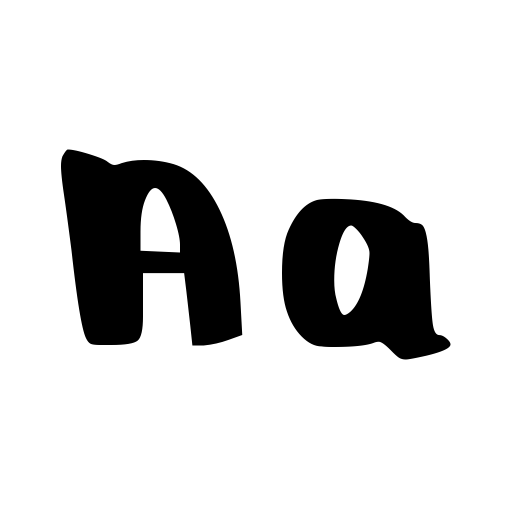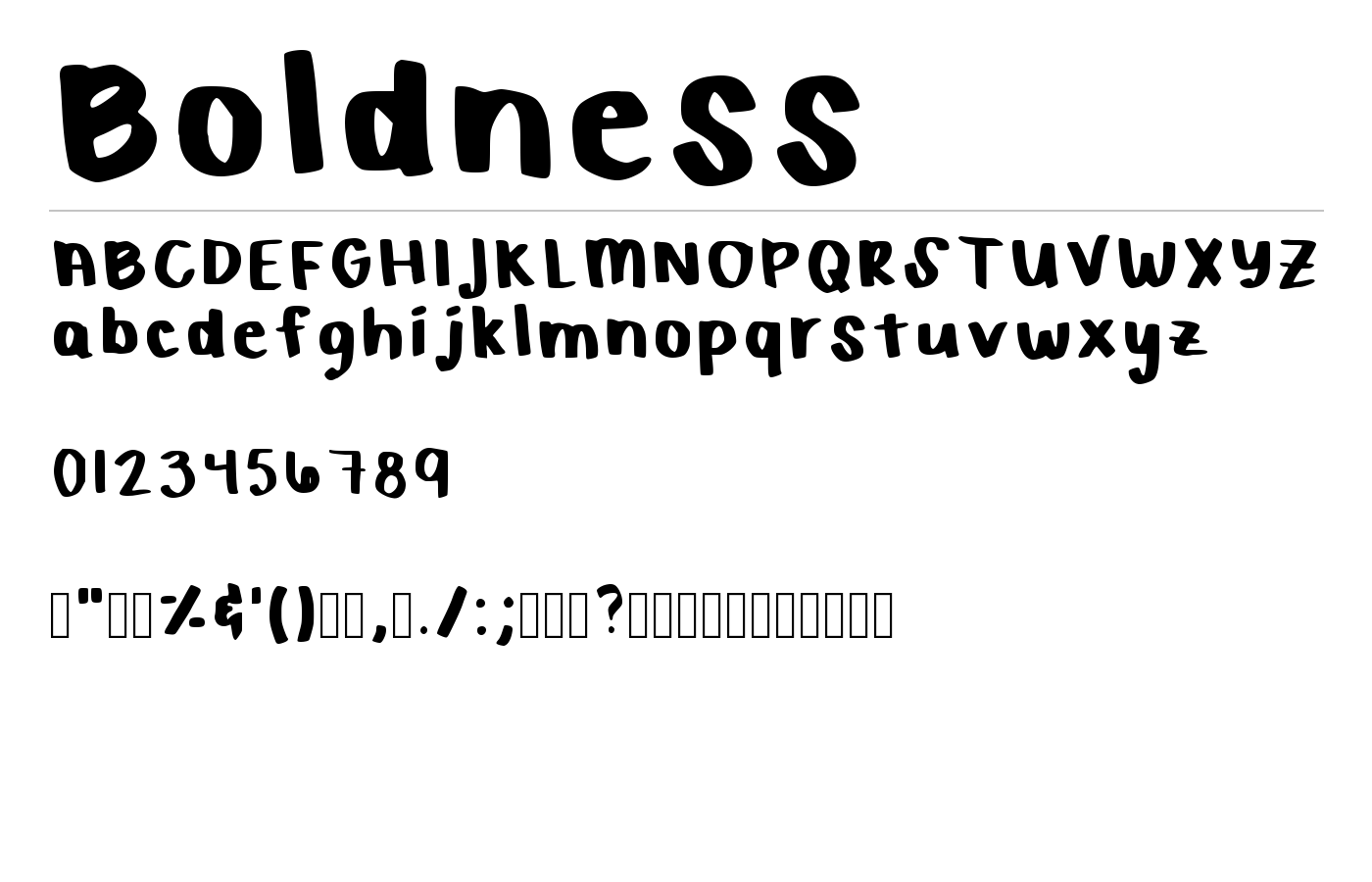
Boldness is a playful, chunky sans-serif font with a hand-drawn feel that combines thick strokes and slightly irregular shapes for a friendly, casual vibe. Its rounded edges and informal style make it ideal for fun branding, children’s materials, and creative projects needing a warm, approachable touch. This font stands out in headlines, logos, and packaging where personality and boldness are key.
Boldness Font